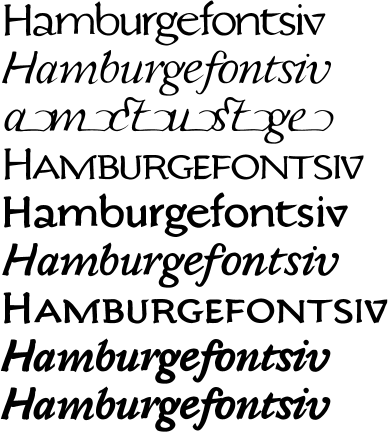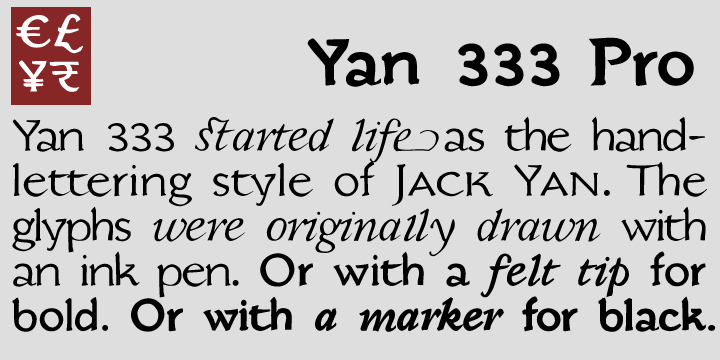
JY&A’s most distinctive calligraphic font, Yan Series 333 is usable at all resolutions and remains legible. Even though it has a strong calligraphic influence, the Yan Series is ideal for text settings that have to appear special. Designed by Jack Yan, the family was developed between 1987 and 1993. Yan studied the effect of a nylon-tip, rather than steel-nib, pen on paper. Originally the 317 series, successive improvements to the design saw it digitized as the 333 series in 1993. The typeface works well in print, regardless of the resolution of the output device. |
Jack Yan, 1987–95, 2011